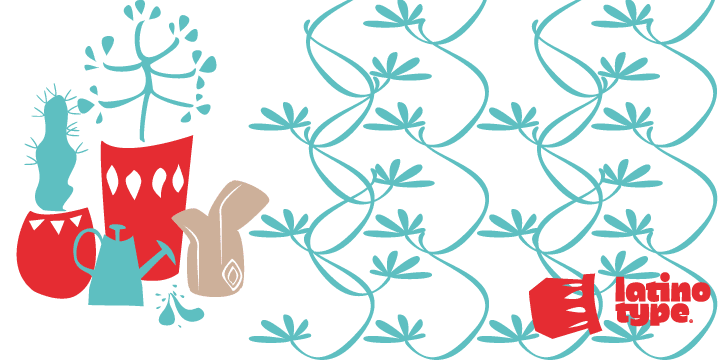
Dans Le Jardin is a dingbat font published by Latinotype.
Dans Le Jardin is a continuation of Dan Le Cuisine dingbat. Their wild and crazy curves give a very special vintage language. Can be used to create patterns or compositions for posters,websites, etc..